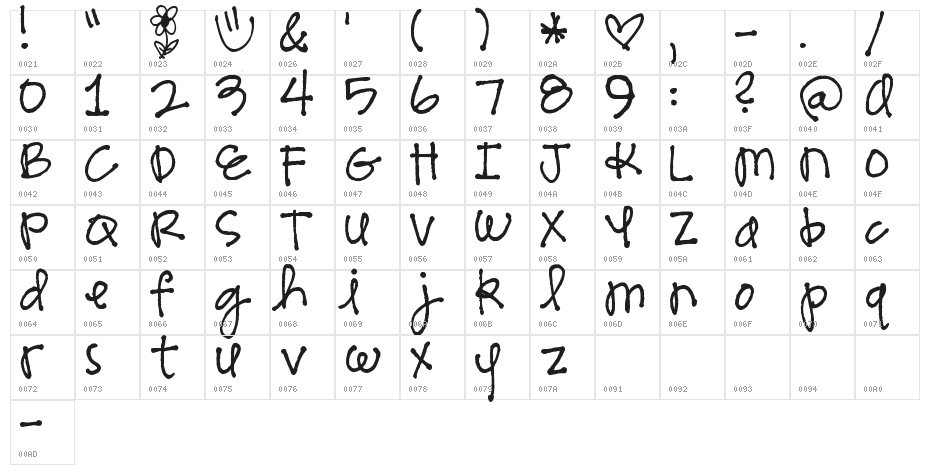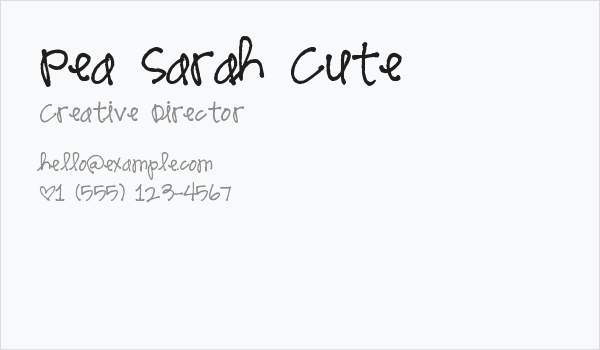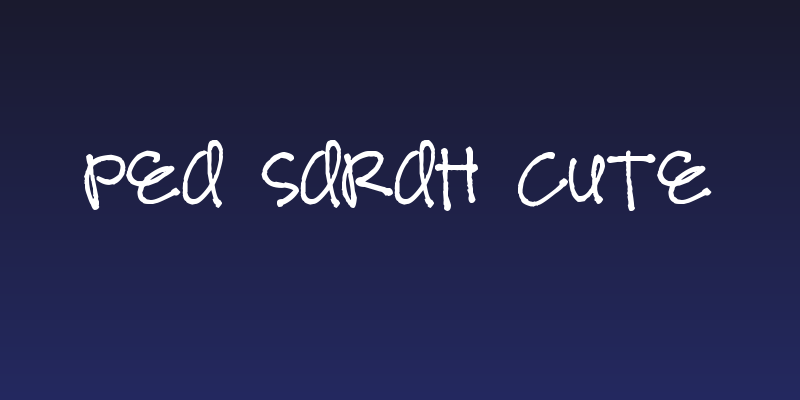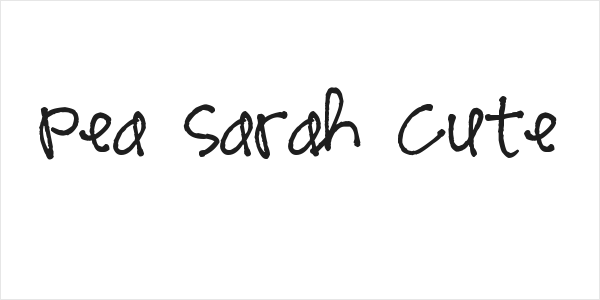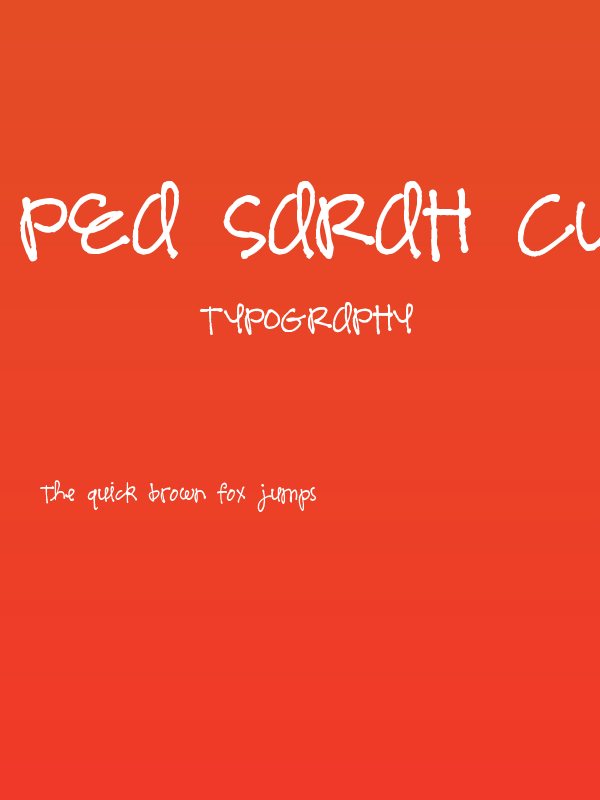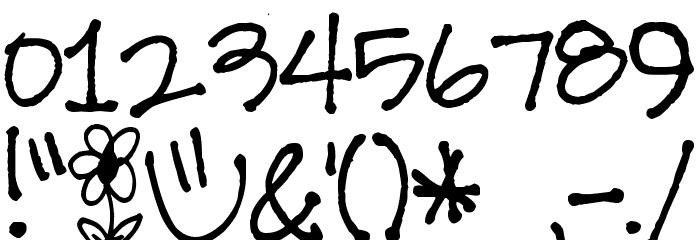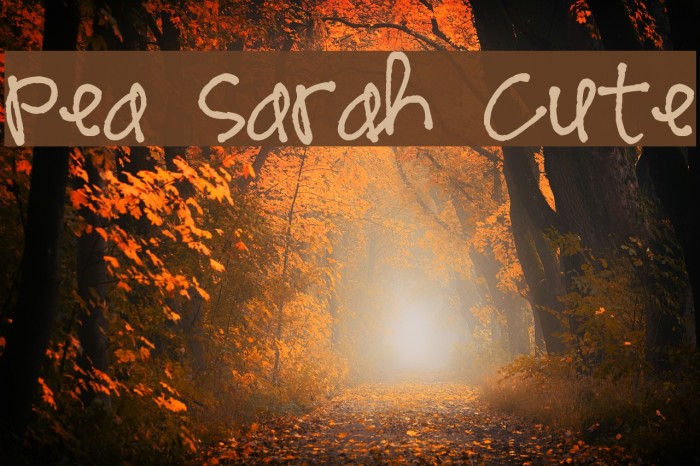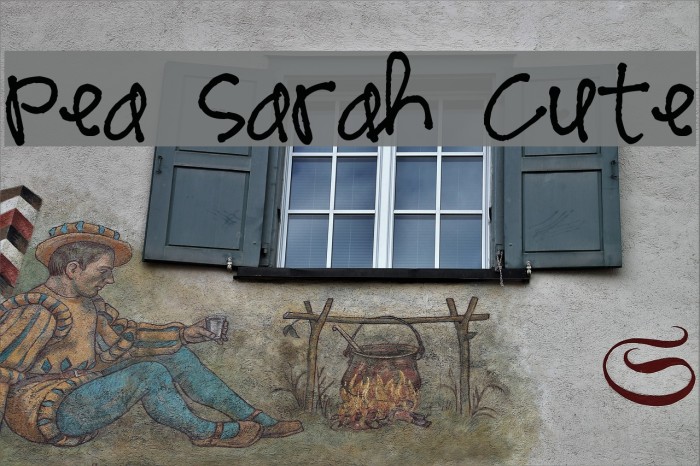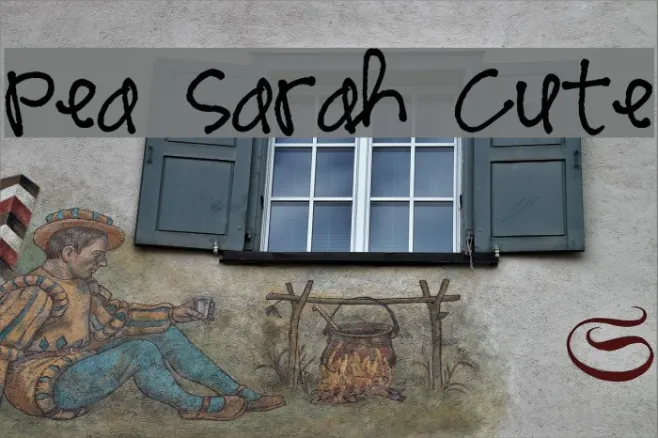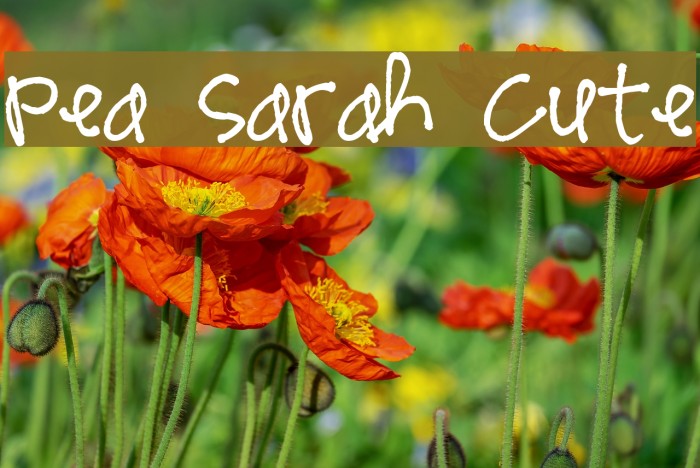
Pea Sarah Cute Font
Pea Sarah Cute Description
This font exudes a playful and whimsical charm, characterized by its handwritten style that mimics the casual, flowing strokes of a marker or pen. The letters are slightly irregular, adding to the font's informal and friendly appearance. Each character is distinct, with a lively bounce that gives the text a dynamic rhythm. The uppercase and lowercase letters maintain a consistent style, while the numbers and special characters blend seamlessly with the overall aesthetic. The font's organic feel makes it ideal for projects that require a personal touch, such as invitations, greeting cards, or playful branding.